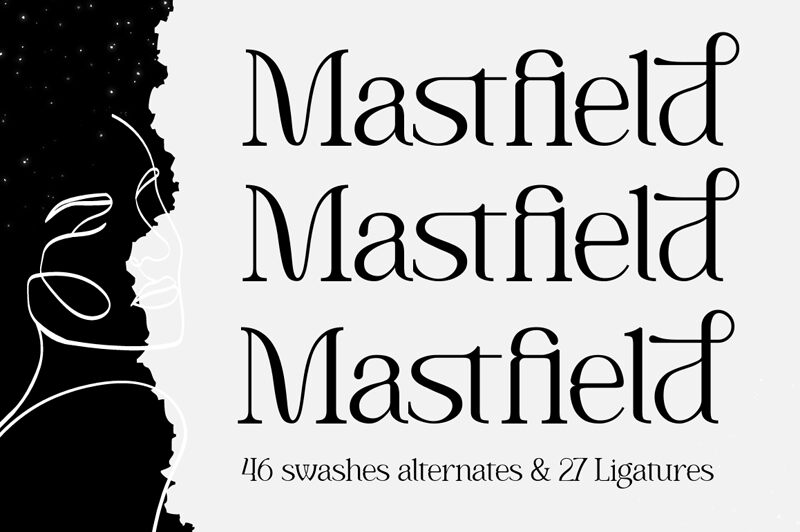
Mastfield
Mastfield, designed by sronstudio, is a versatile semi-light font that exudes elegance and sophistication.
With its clean lines and balanced proportions, this font is perfect for creating minimalist logos and branding materials. Its gentle weight makes it well-suited for editorial layouts, giving your magazine or book an effortlessly stylish look. Mastfield's subtle charm also makes it a great choice for greeting cards and invitations, adding a touch of refinement to any special occasion.
Whether you're designing a website or crafting a beautiful packaging design, Mastfield will elevate your projects with its refined aesthetic.